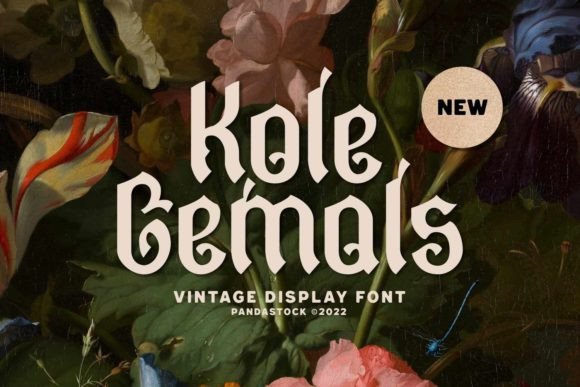
Kole Gemols: A Vintage Blackletter Font That Radiates Beauty and Legibility
In a world of digital monotony, Kole Gemols enters the scene as a resplendent blackletter font, a testament to the enduring power of visual elegance. Its smooth curves and exquisite ligatures weave a symphony of sophistication, transforming your creative endeavors into captivating masterpieces.
Kole Gemols, a creation of Imoodev, is more than just a font; it's a gateway to a bygone era, where artistry and attention to detail reigned supreme. Its vintage charm adds a touch of timeless allure to your designs, ensuring they stand out from the ordinary.
Versatility is Kole Gemols' middle name. Its adaptability shines in both small and large sizes, making it an ideal choice for a diverse range of projects. From logos and invitations to branding, magazines, and photography, Kole Gemols effortlessly elevates your work to new heights.